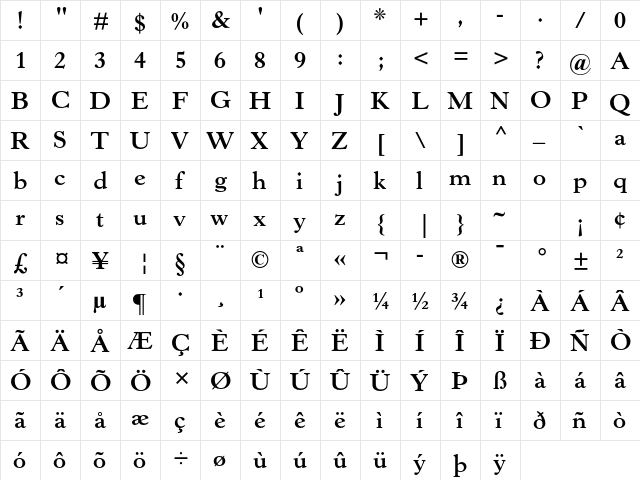
Horley Old Style MT Std Bold
Design Context for Horley Old Style MT Std Typeface
Horley Old Style MT Std offers clean, dependable letterforms without strong stylistic allegiance, making it a practical choice for designers who need flexibility. The heavy weight commands attention and anchors typographic hierarchies.